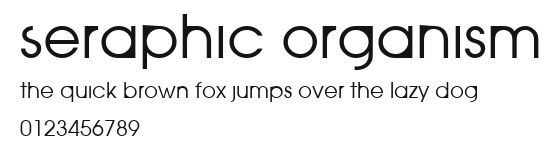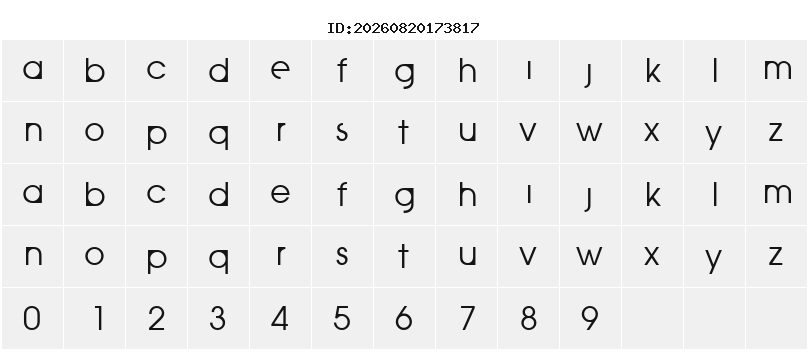
• Font Name: Seraphic Organism
• Full Font Name: Seraphic Organism
About Seraphic Organism.ttf
Seraphic Organism.ttf is a modern, elegant sans-serif font designed for ultimate readability and visual harmony. Perfect for branding, headlines, web design, and print materials.